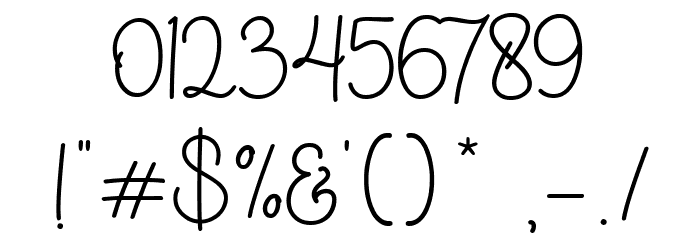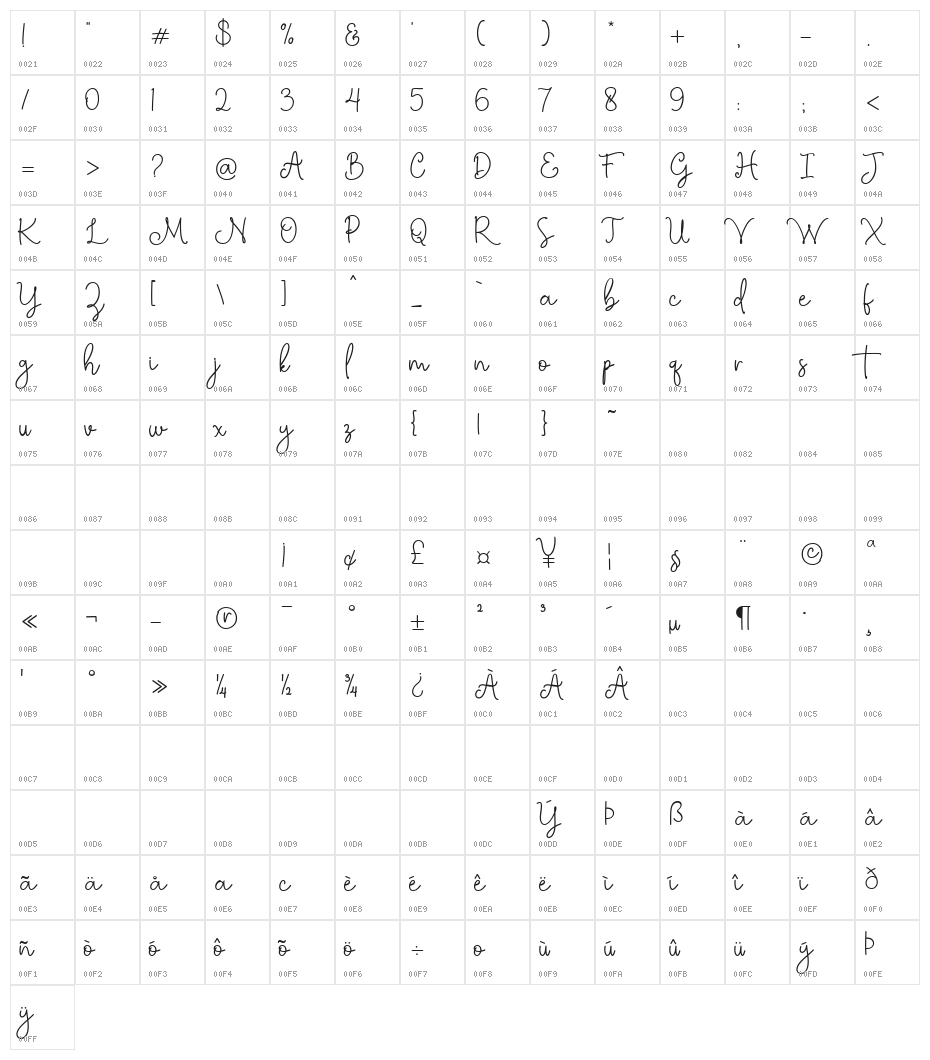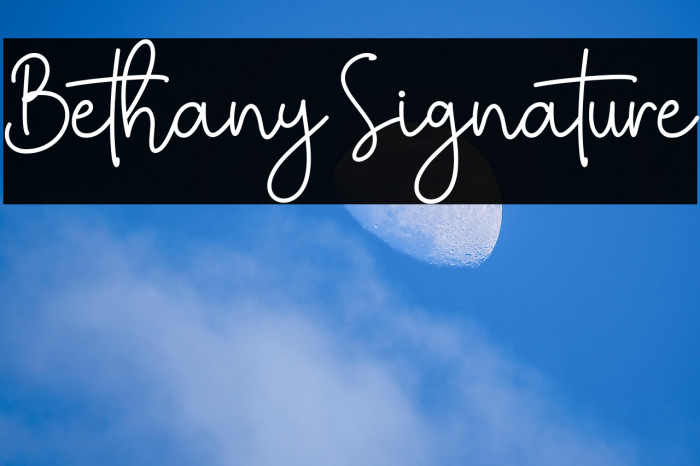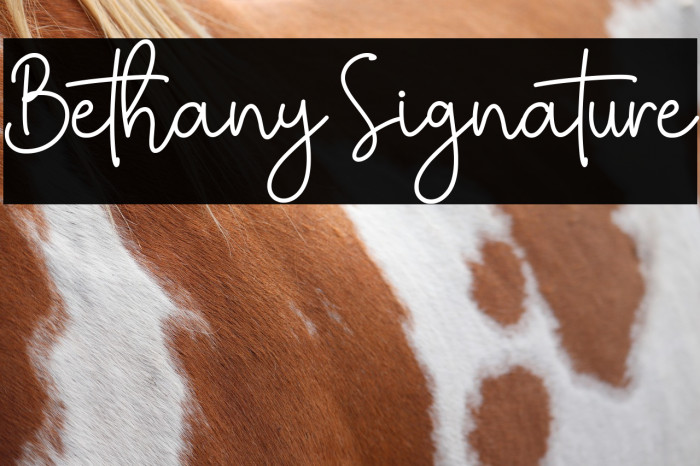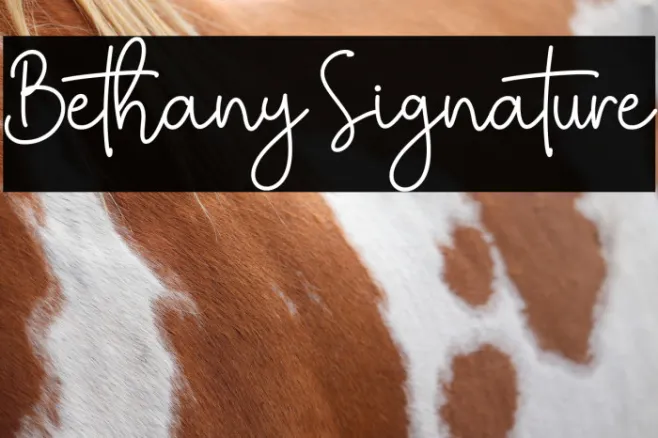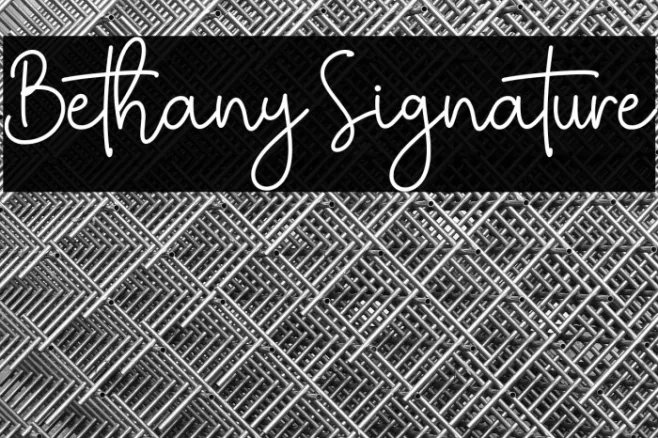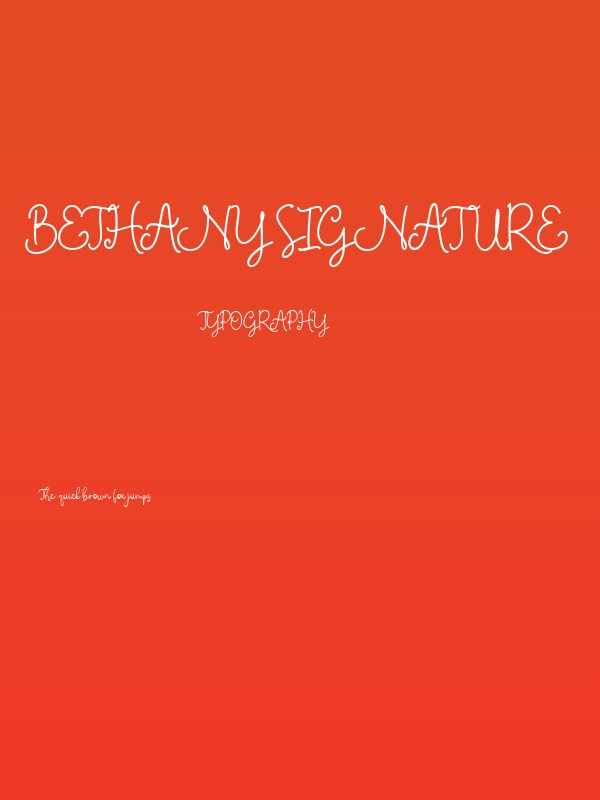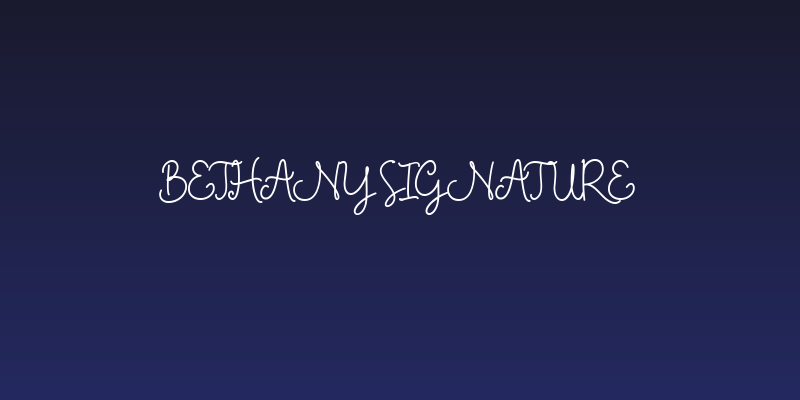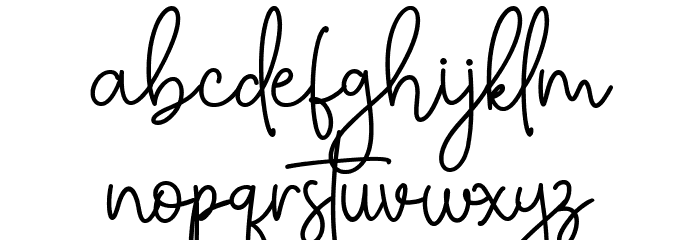
Bethany Signature Font
Bethany Signature Description
This font exudes a charming and elegant handwritten style, characterized by its flowing and connected script. The letters are gracefully looped and curved, giving it a personal and artistic touch. The uppercase letters maintain a consistent height, while the lowercase letters exhibit a playful variation in their ascenders and descenders. The numerals are styled to match the fluidity of the letters, ensuring a cohesive look. Special characters are thoughtfully designed to complement the overall aesthetic, making it suitable for creative and expressive projects.